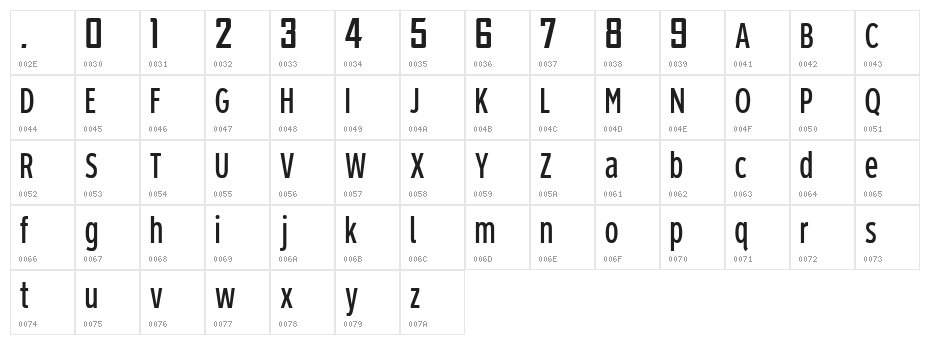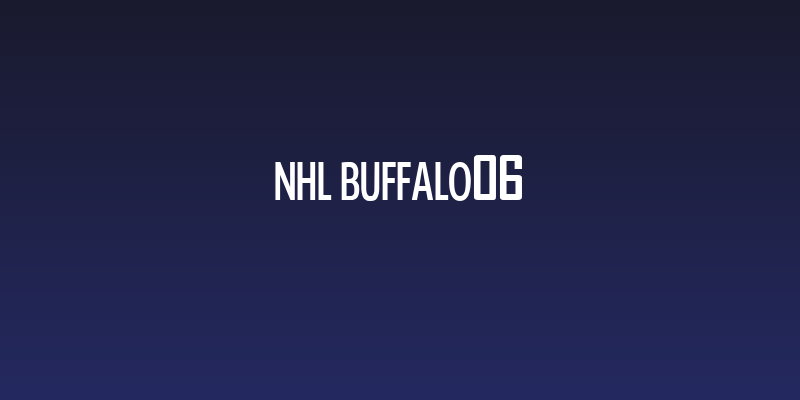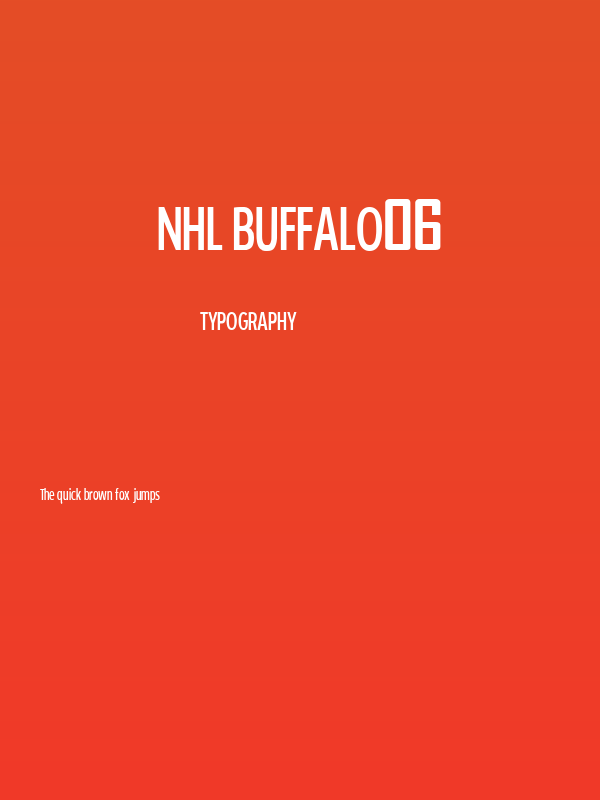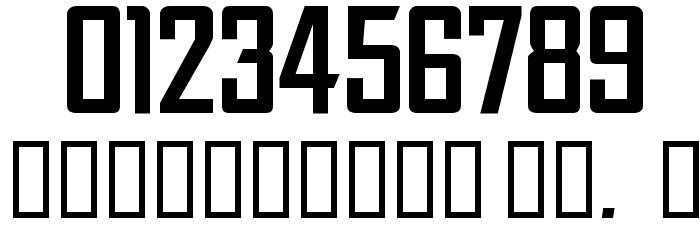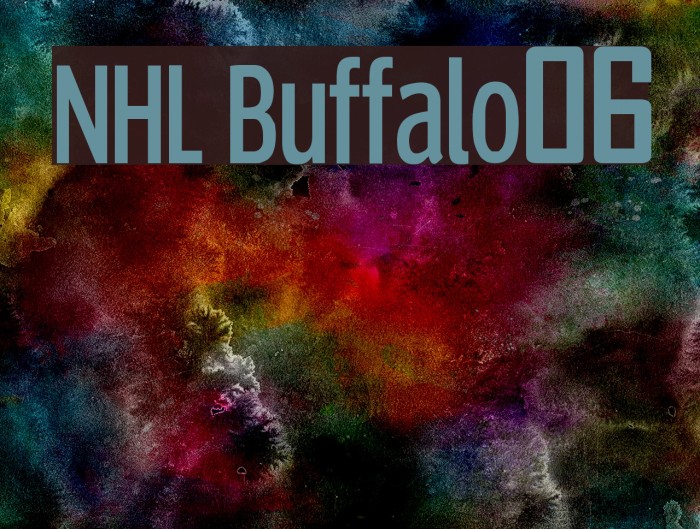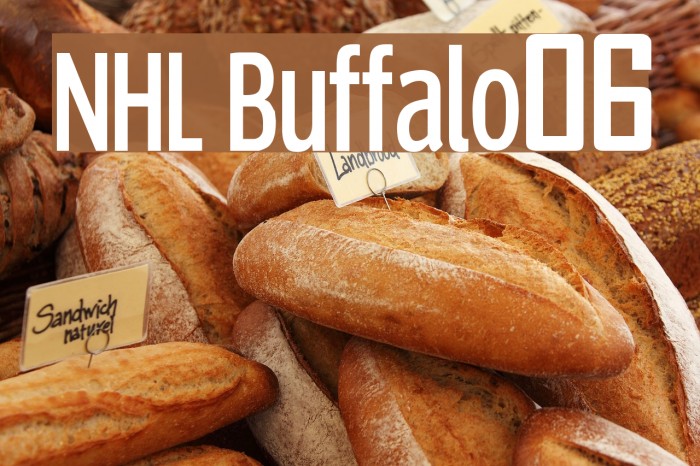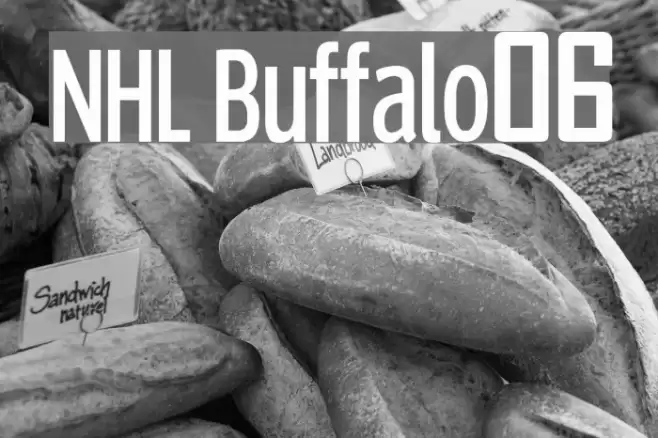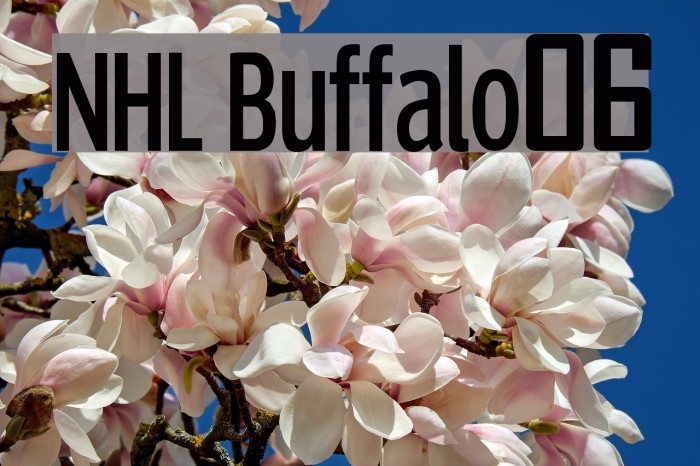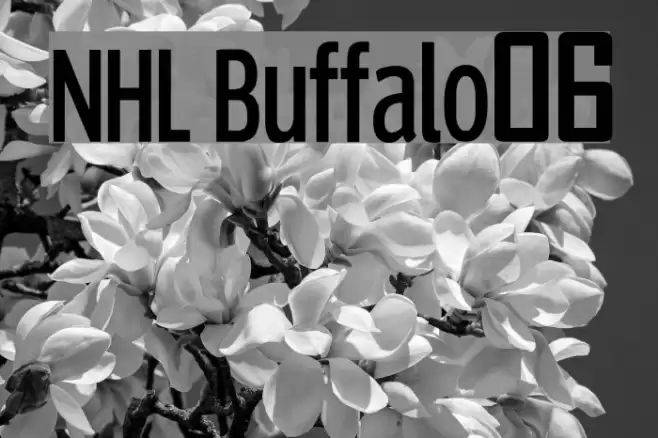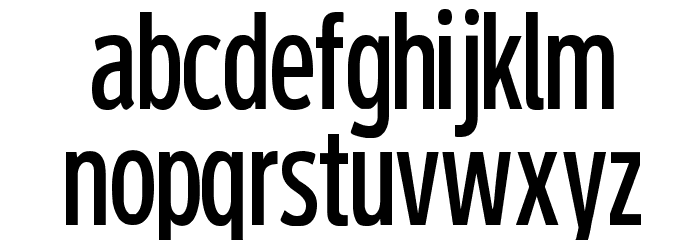
NHL Buffalo06 Font
NHL Buffalo06 Description
This font features a bold and modern sans-serif style with clean, straight lines and a slightly condensed appearance. The uppercase letters are tall and commanding, while the lowercase letters maintain a consistent height, providing a harmonious balance. The numerals are clear and legible, making them suitable for various applications. The overall design is sleek and professional, with a focus on readability and impact. The font's simplicity and clarity make it versatile for both digital and print media.
| Proposed Projects | Ideal for branding, advertising, headlines, and sports-related designs. |